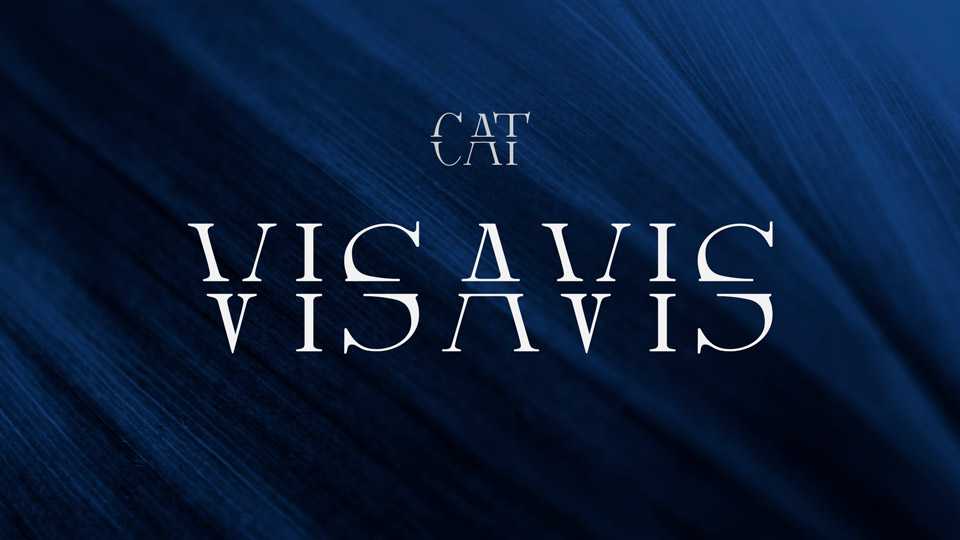
Download Vis-A-Vis typeface, a decorative font family in two weights, Vis-A-Vis is an Antiqua-like font, just divided in the middle so that each half almost represents its own letters, which are just opposite each other.